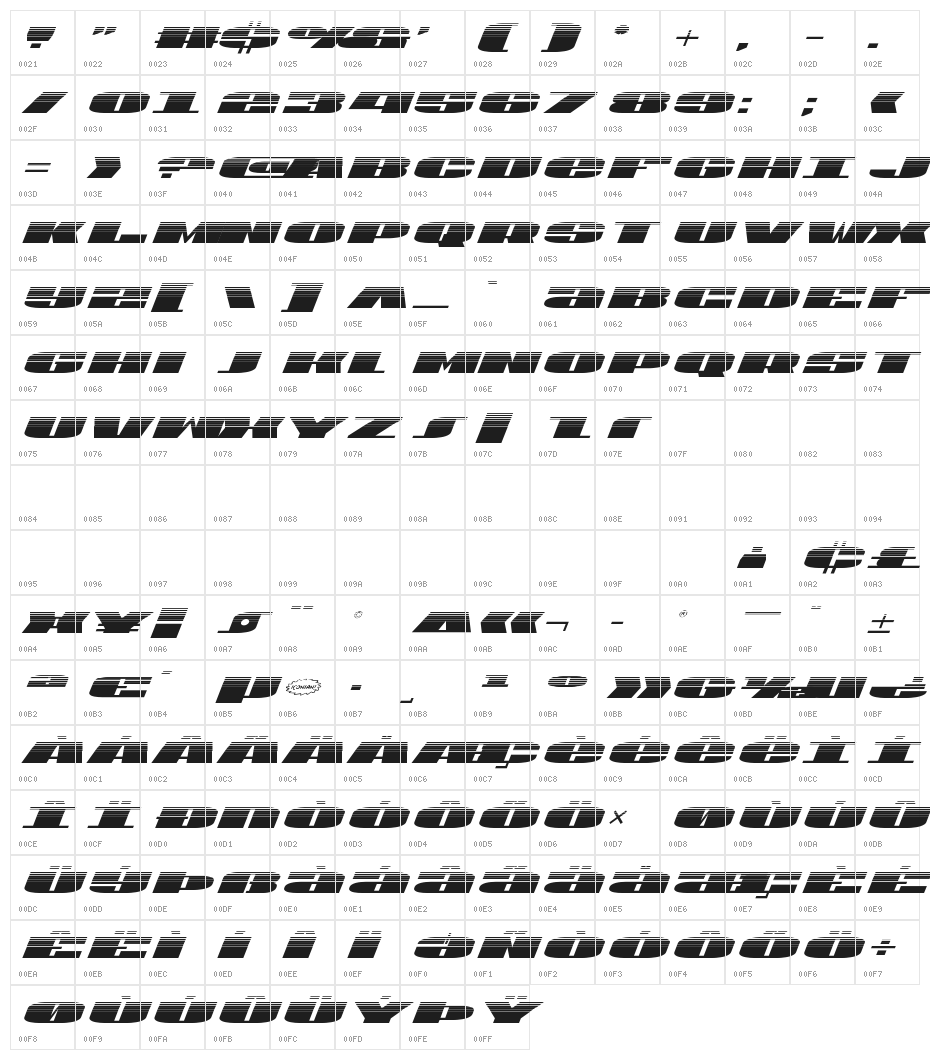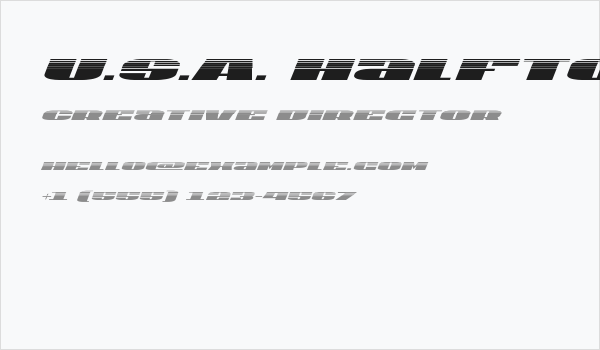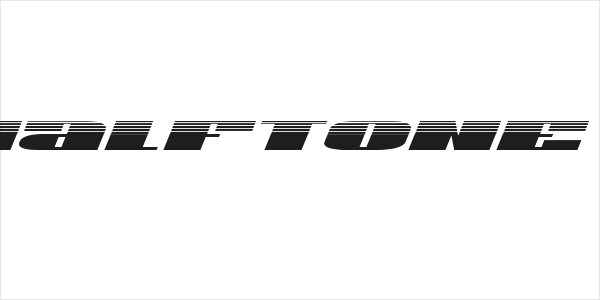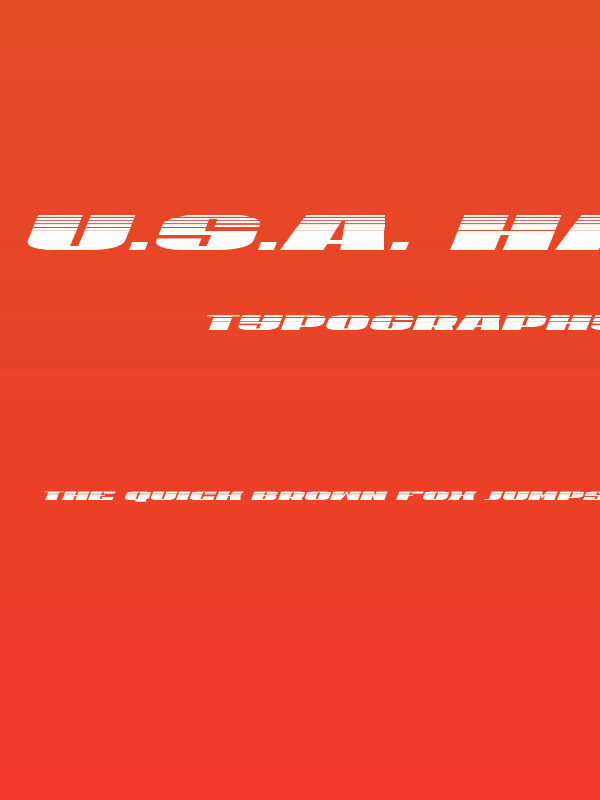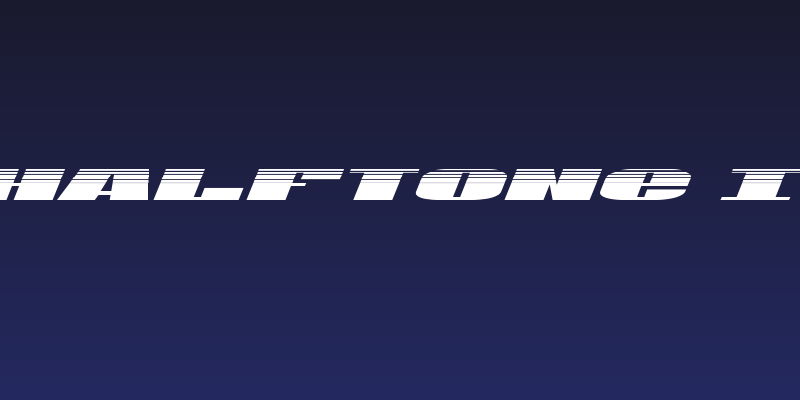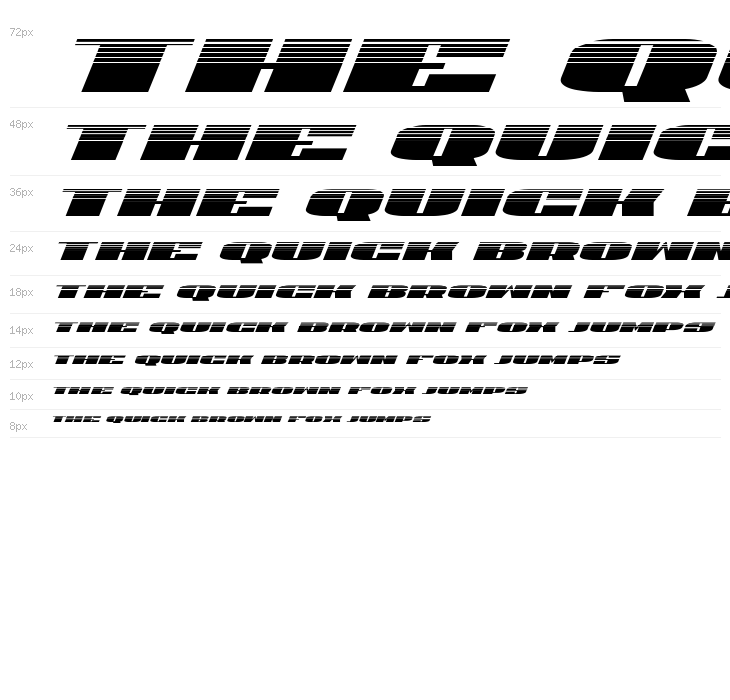
U.S.A. Halftone Italic Font
U.S.A. Halftone Italic Description
This font features a bold, italicized style with a distinctive halftone pattern that gives it a dynamic and modern appearance. The characters are wide and have a strong presence, making them highly visible and impactful. The halftone effect creates a sense of movement and energy, which is enhanced by the italic slant. Each letter is designed with a consistent pattern of horizontal lines, adding texture and depth. The numerals and special characters maintain the same stylistic elements, ensuring uniformity across all glyphs. This font is particularly suitable for projects that require a bold statement or a futuristic look.